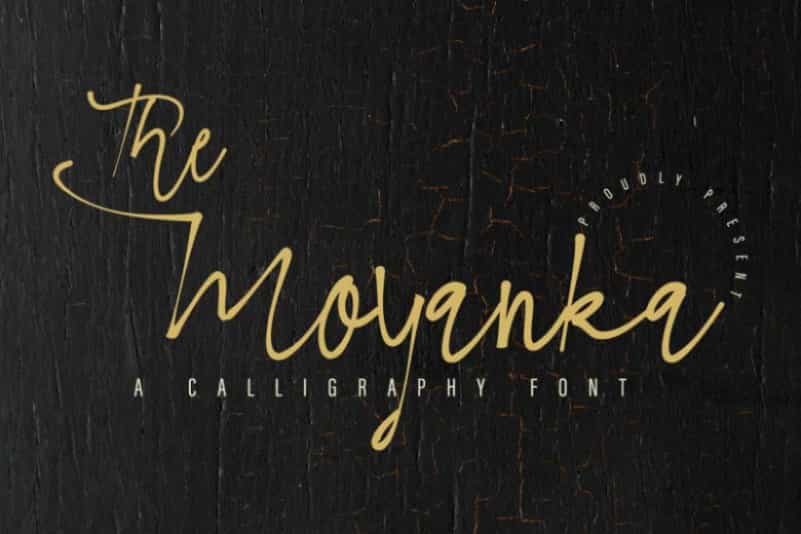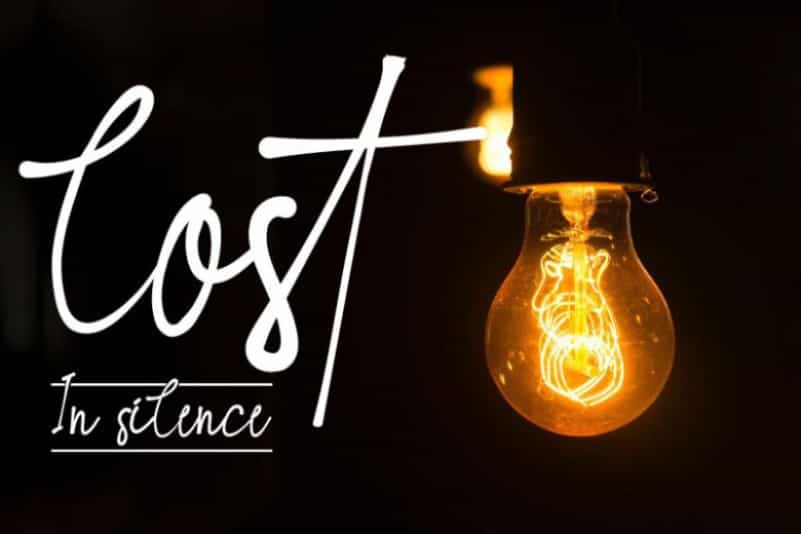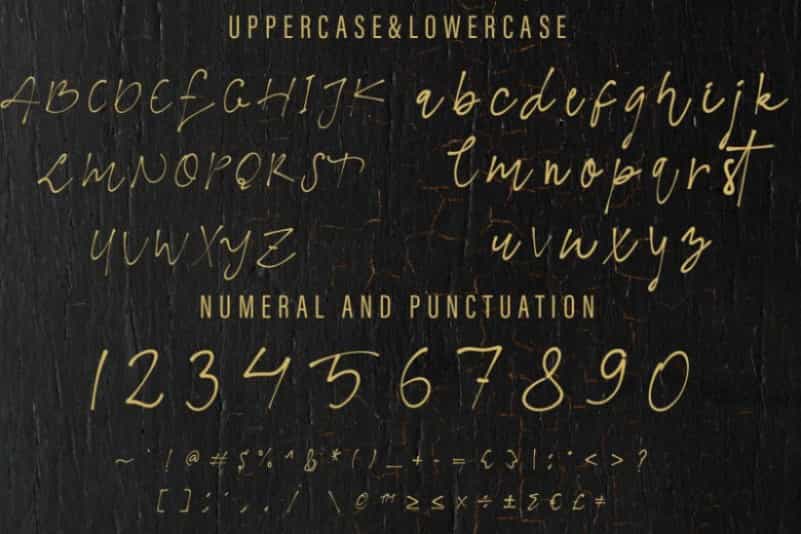
Discover The Moyanka Calligraphy Font, part of the Calligraphy Handwritten collection—a versatile and unique font perfect for adding a personal touch to your projects. Download it for free and enjoy crafting designs with style, from invitations to social media posts. This font is available exclusively for personal use, giving you the freedom to create without limits. Unlock your creativity with The Moyanka Calligraphy Font today!
Moyanka is a unique calligraphy script typeface in brush-style. The Moyanka font is stunning. characters set, that is well-managed with kerning and spacing that is well-placed. The style of this font is elegant, classic, stylish sophisticated and classic calligraphic style. It is impossible to find anywhere and the font is similar to The Moyanka calligraphy font.